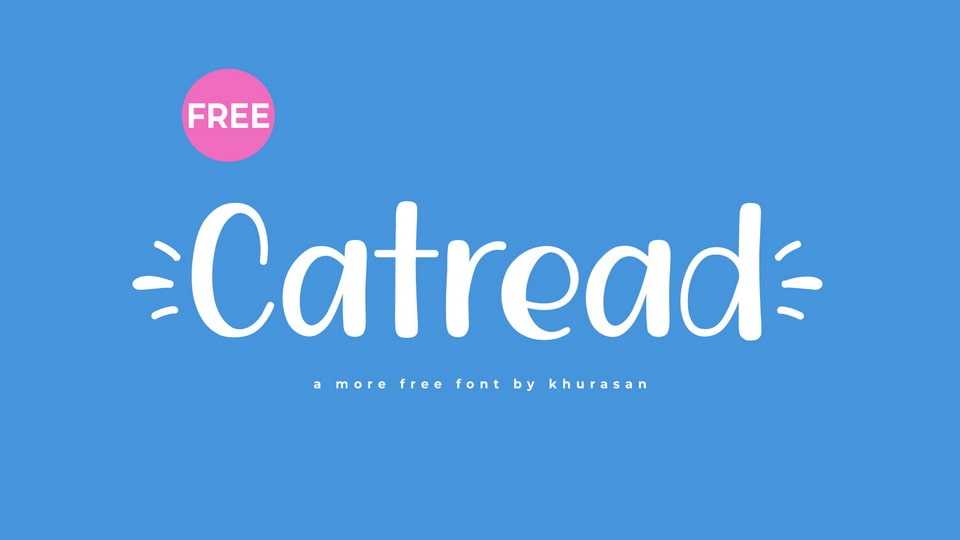
Download Catread font, a lovely and irresistibly cute handwritten typeface that adds a touch of warmth and charm to your projects. Crafted with love and attention to detail, Catread typeface exudes a delightful playfulness, making it perfect for adding a sense of sweetness in your designs.